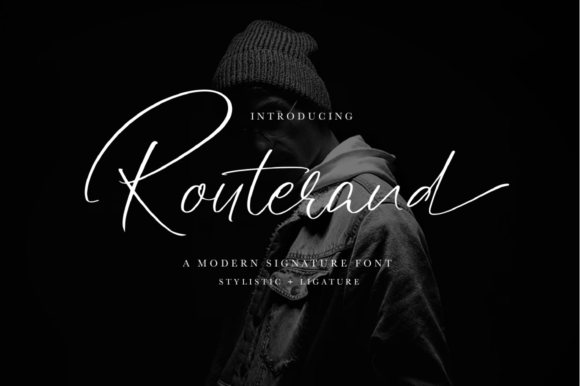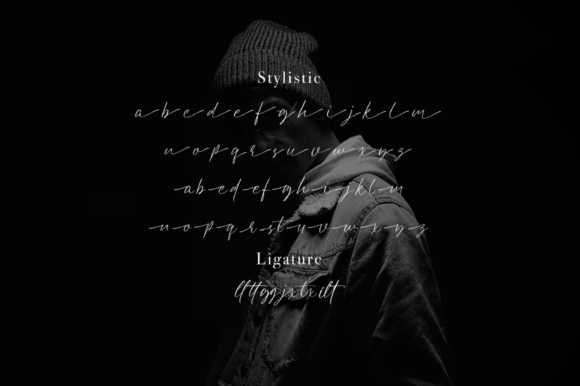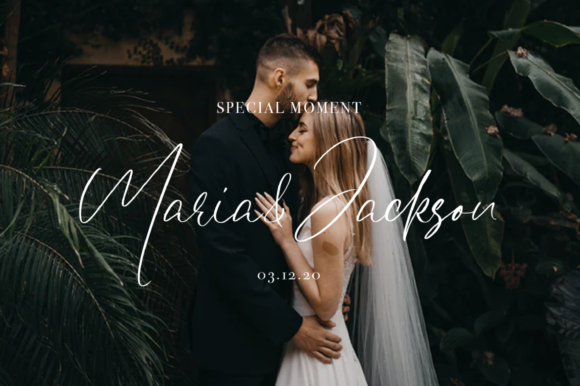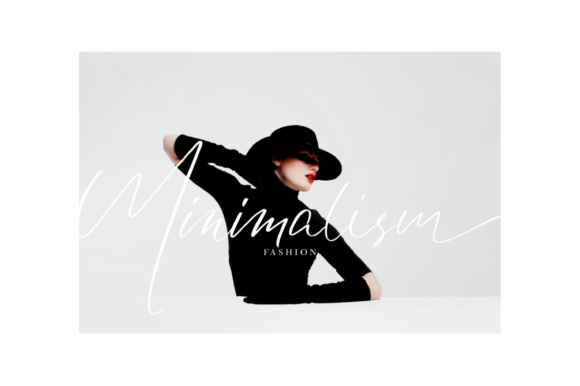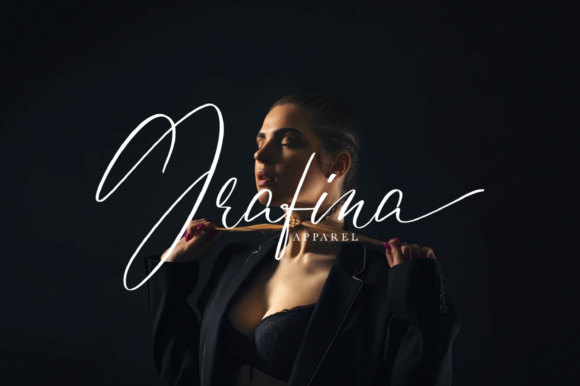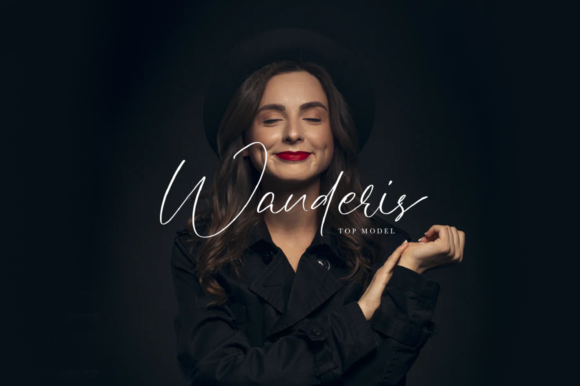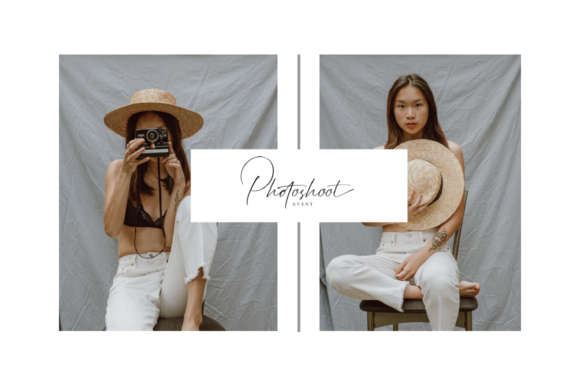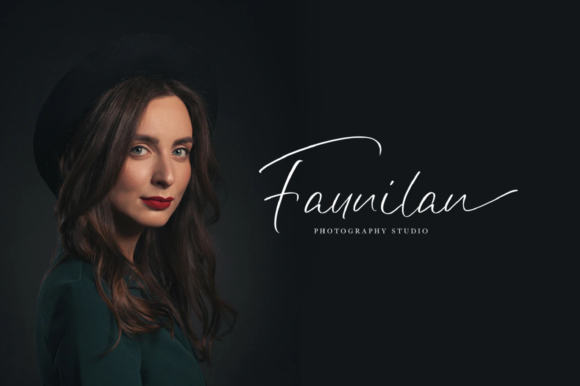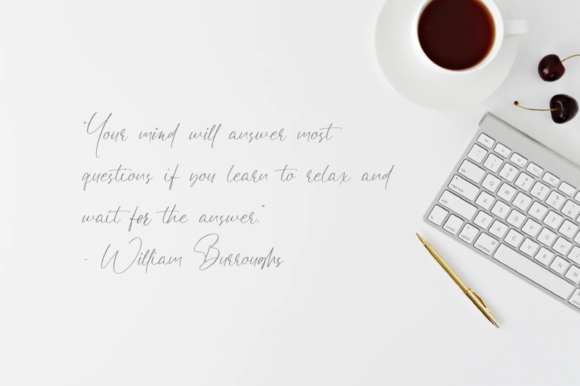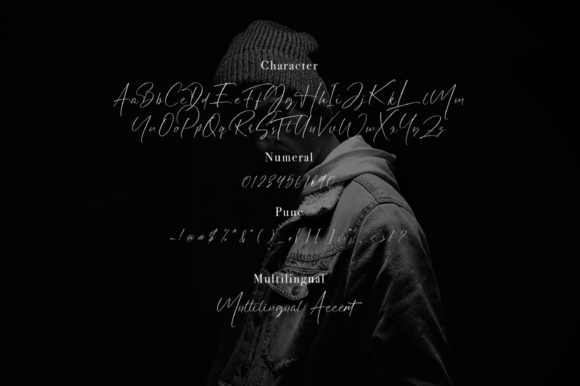
Routerand Font
About Routerand Font
Routerand is a thin lettered and graceful script font. Fall for its ravishing style and use it to create gorgeous wedding invitations, beautiful stationary art, eye-catching social media posts, and much more!